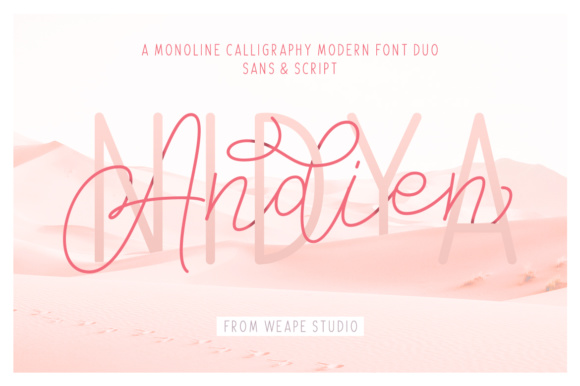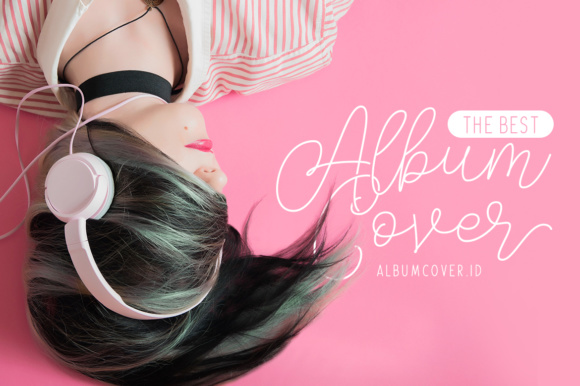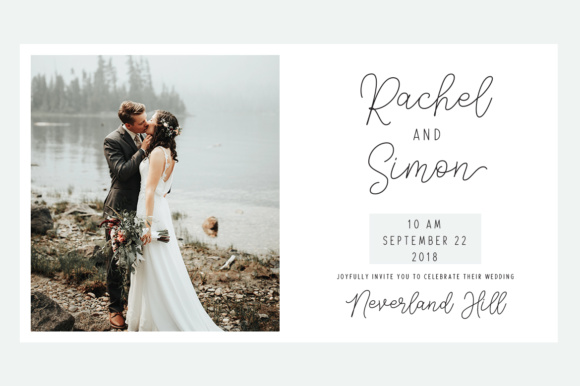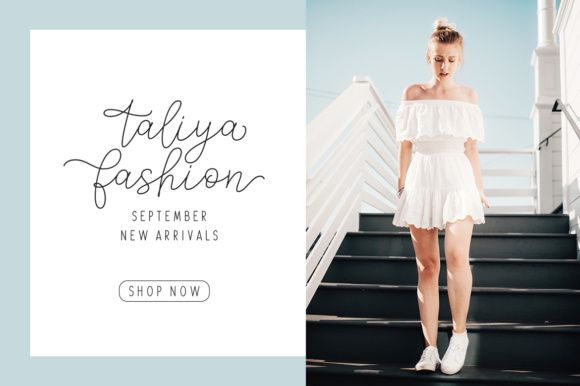
Andien Nidya Duo Font
About the Andien Nidya Duo Font
Presenting Andien Nidya Duo Font, a unique and stylish typeface that will make your work stand out. The Andien Nidya is a monoline calligraphy font duo. It has a sophisticated monoline signature style and comes in a script and sans version. It’s perfect for adding a classy, modern touch to your projects.
Its elegant, modern script is ideal for logos, short headlines, and invitations, lending a touch of sophistication. The accompanying sans-serif complements the script, providing a clean, legible counterpoint for body text where needed. Avoid using the script for large blocks of text or UI elements; its delicate nature reduces readability in those contexts.
The Andien Nidya Duo exudes a sophisticated and modern personality. It’s well-suited to brands aiming for a refined yet approachable image—think high-end stationery, boutique fashion, or artisanal food products.
Consider pairing the script with a geometric sans-serif for a contemporary feel, or a classic serif for a more timeless look. The sans-serif version pairs well with almost any font, offering versatility for various design needs.
Andien Nidya Duo Font Usage Examples
Andien Nidya Duo Font Example